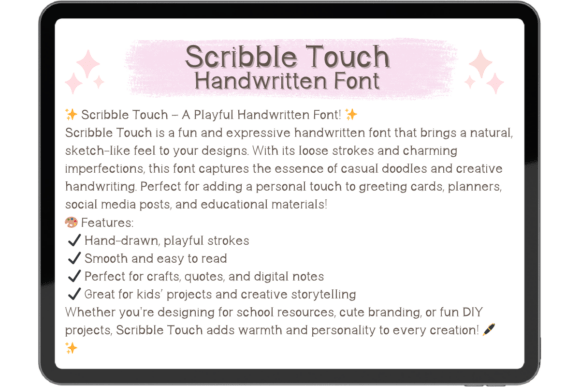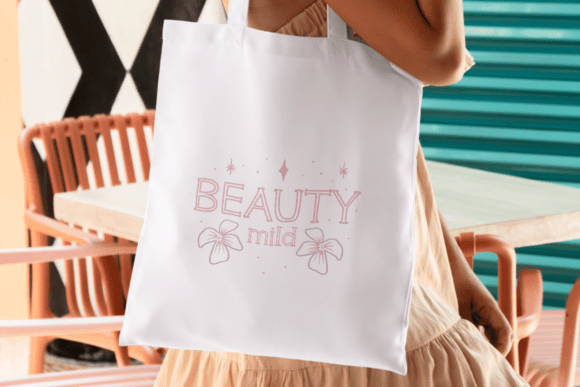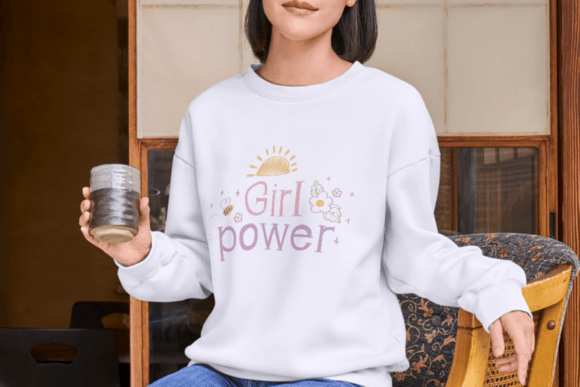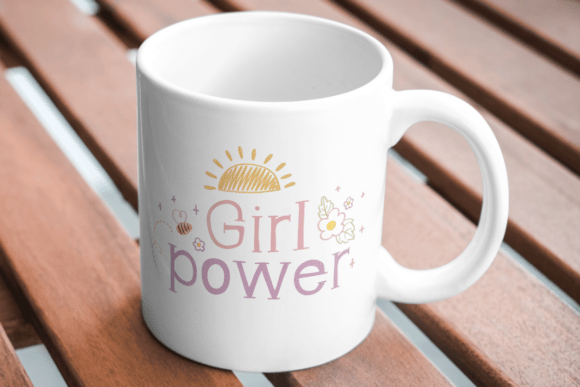
Introduction to Scribble Touch Font
Have you ever sat down with a pencil and a piece of paper, letting your creativity flow freely as you doodle and sketch? For many of us, this carefree moment of self-expression is a beloved part of the design process. And now, with the Scribble Touch Font, you can bring that same sense of freedom and playfulness to your digital creations.
This charming handwritten font is designed to evoke the natural, sketch-like feel of casual doodles and creative handwriting. With its loose strokes and charming imperfections, Scribble Touch Font adds a personal touch to any design project. Whether you’re a student, educator, or professional designer, this versatile font is a valuable resource for adding warmth and personality to your work.
As a high-quality design resource, Scribble Touch Font is perfect for a wide range of creative projects, from social media posts and greeting cards to educational materials and kids’ projects. And the best part? It’s available for free download, making it a fantastic addition to any designer’s toolkit.
Key Features of Scribble Touch Font
- Unique, hand-drawn design with a modern twist, perfect for creative projects and designs that require a personal touch.
- Transparent background, making it easy to overlay on images or use as a design resource in your creative projects.
- Available in 5 different styles, including regular, bold, italic, bold italic, and outline, to suit various design needs.
- Includes a wide range of characters, including uppercase and lowercase letters, numbers, and special characters, to ensure comprehensive coverage.
- Scalable to any size and resolution, making it ideal for use in various design contexts, from small logos to large-scale designs.
- Perfect for designers and artists looking for a high-quality, unique font to add a personal touch to their creative projects.
Honest Review: Scribble Touch Font
I recently had the chance to try out the Scribble Touch Font, and I must say it’s a unique addition to any design project. This free download offers a lot of flexibility for designers looking to create something fresh and modern.
- What works well: ✨ The Scribble Touch Font features a high-quality design with a transparent background, making it perfect for creative projects that require a clean and minimalist aesthetic. The font is also highly customizable, allowing you to adjust the size and color to suit your design needs.
- What works well: ✨ The font’s distressed, handwritten feel adds a touch of personality to any design, making it ideal for branding and marketing materials.
However, there are a few limitations to consider. ⚠️ The font may not be suitable for projects that require a more formal or traditional look. Additionally, the font’s unique design can be overwhelming if used in large quantities.
Overall, I’m impressed with the Scribble Touch Font’s potential as a design resource. With its high-quality design and flexibility, it’s a great choice for designers looking to add some creativity to their projects. Just be sure to use it thoughtfully and in moderation.
Tips for Getting the Most Out of Scribble Touch Font
To get the most out of Scribble Touch Font, experiment with different font sizes, styles, and colors to create a unique look. You can also combine the font with other design elements, such as graphics and images, to add depth and interest to your creative project.
Scribble Touch Font is ideal for creative projects that require a unique and playful touch. Some common use cases include designing children’s books, creating educational materials, and developing marketing campaigns for young audiences.
Yes, the Scribble Touch Font has a transparent background, making it easy to use in various design scenarios. This feature allows you to combine the font with other design elements, such as images or shapes, to create unique and visually appealing compositions.